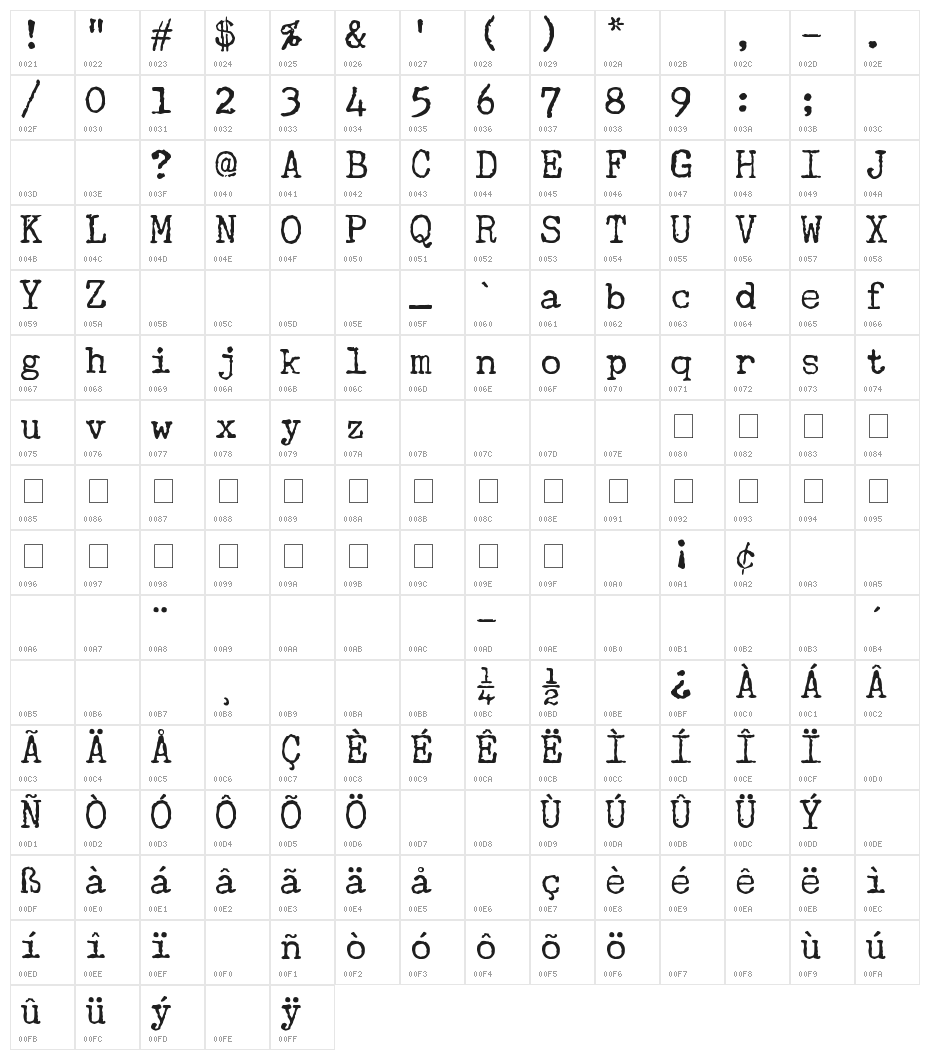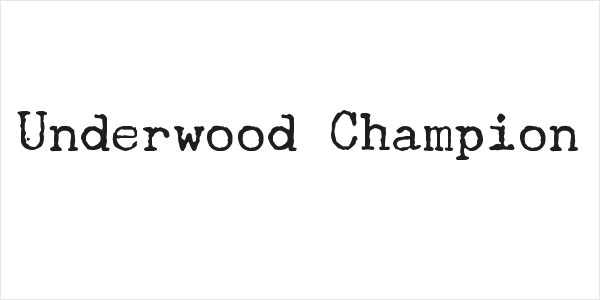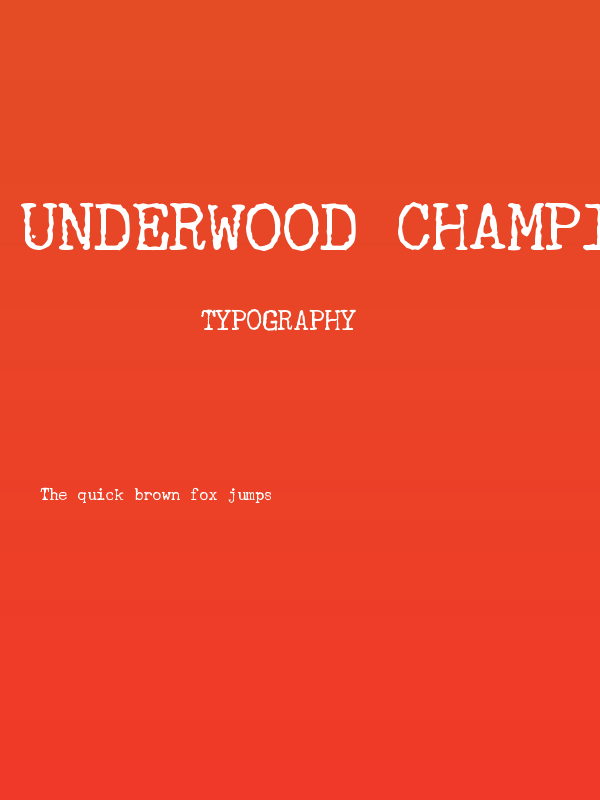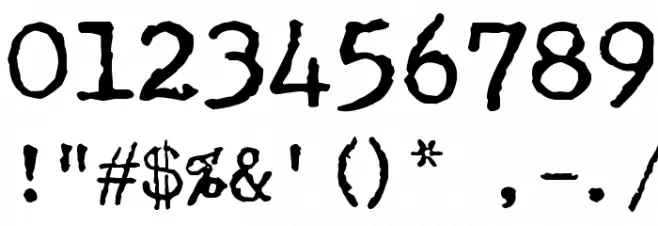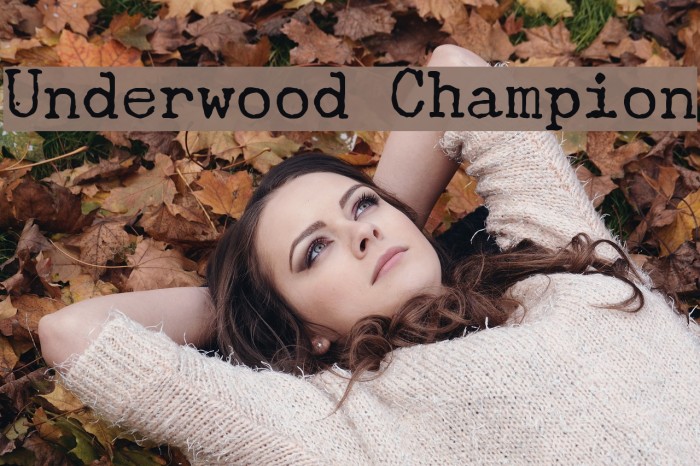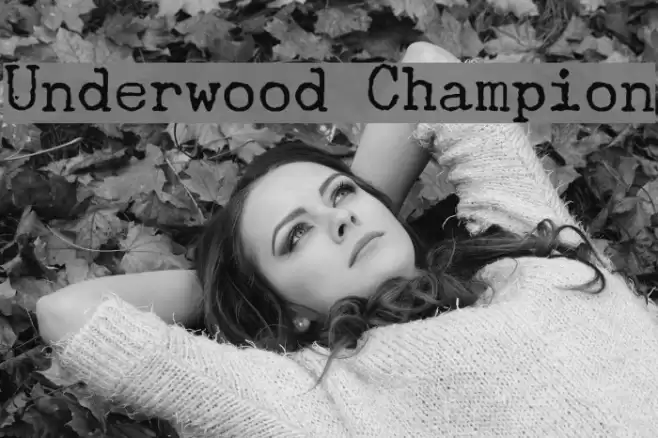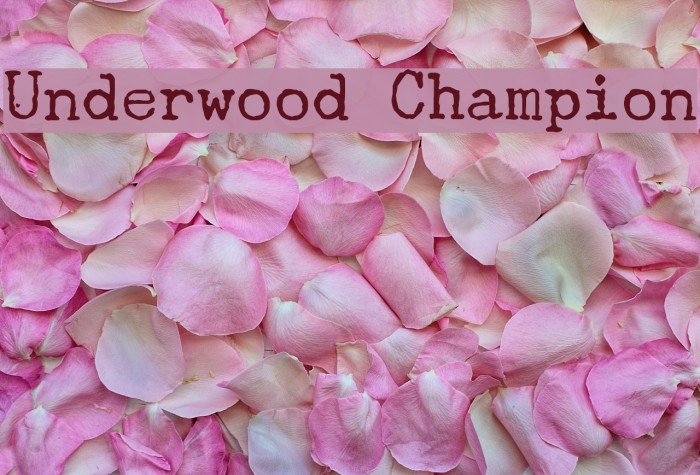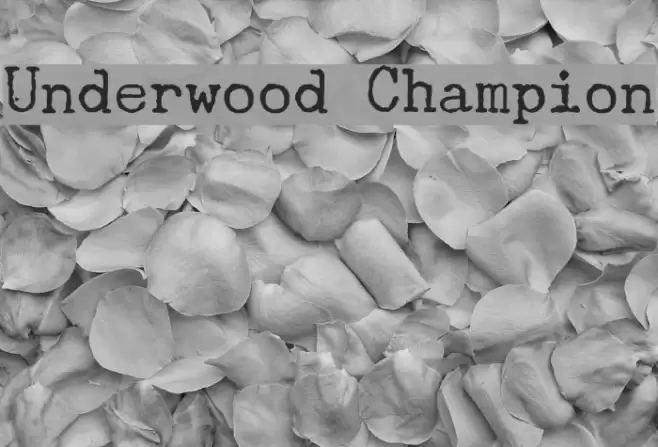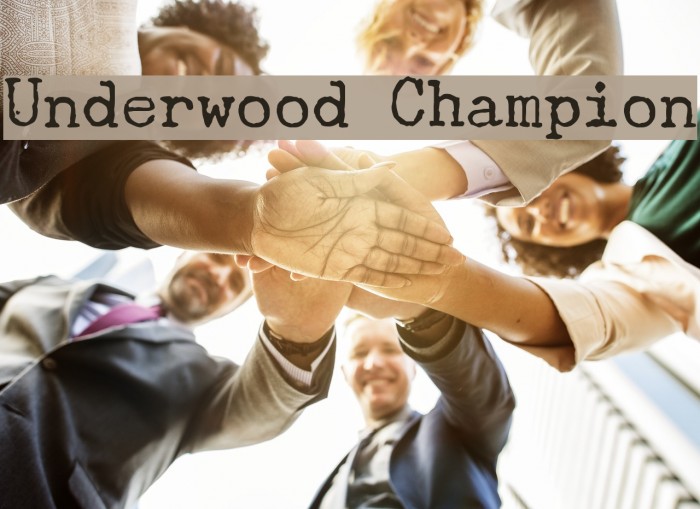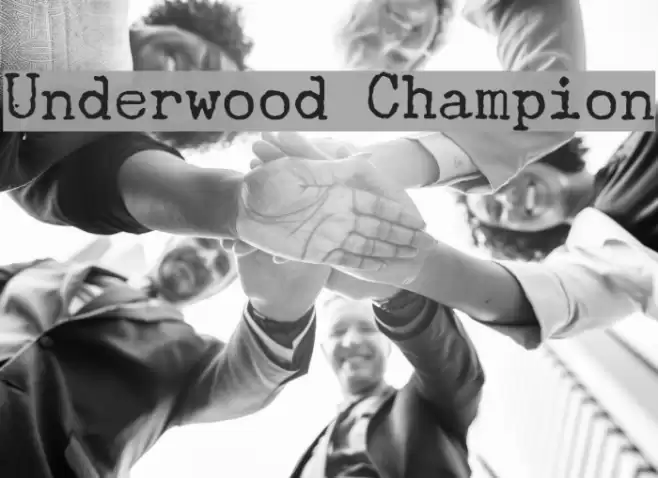
Underwood Champion Font
Underwood Champion Description
This typeface exudes a vintage, typewriter-inspired aesthetic with its uneven, slightly distressed letterforms. The characters have a distinct, organic feel, reminiscent of old typewritten documents. Each letter features subtle variations in stroke width, adding to the authentic, mechanical look. The uppercase and lowercase letters maintain a consistent style, with rounded edges and a slightly rough texture. The numbers and special characters follow the same design principles, ensuring a cohesive appearance across all glyphs. This font captures the essence of a bygone era, making it ideal for projects that require a touch of nostalgia.
| Overall Style | Vintage |
| Use Case | Headlines, Logos, Creative projects |
| Proposed Projects | Ideal for retro-themed designs, vintage posters, typewriter-style documents, and creative projects that require an authentic, old-fashioned touch. |